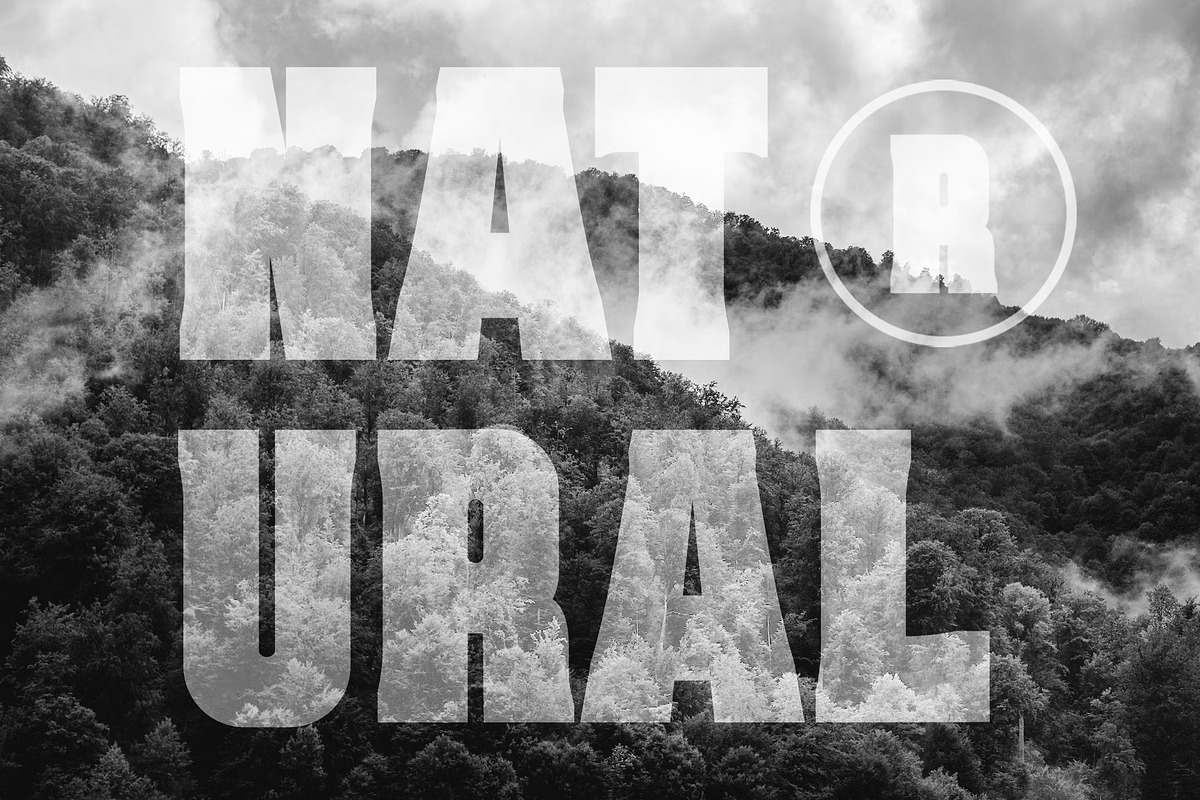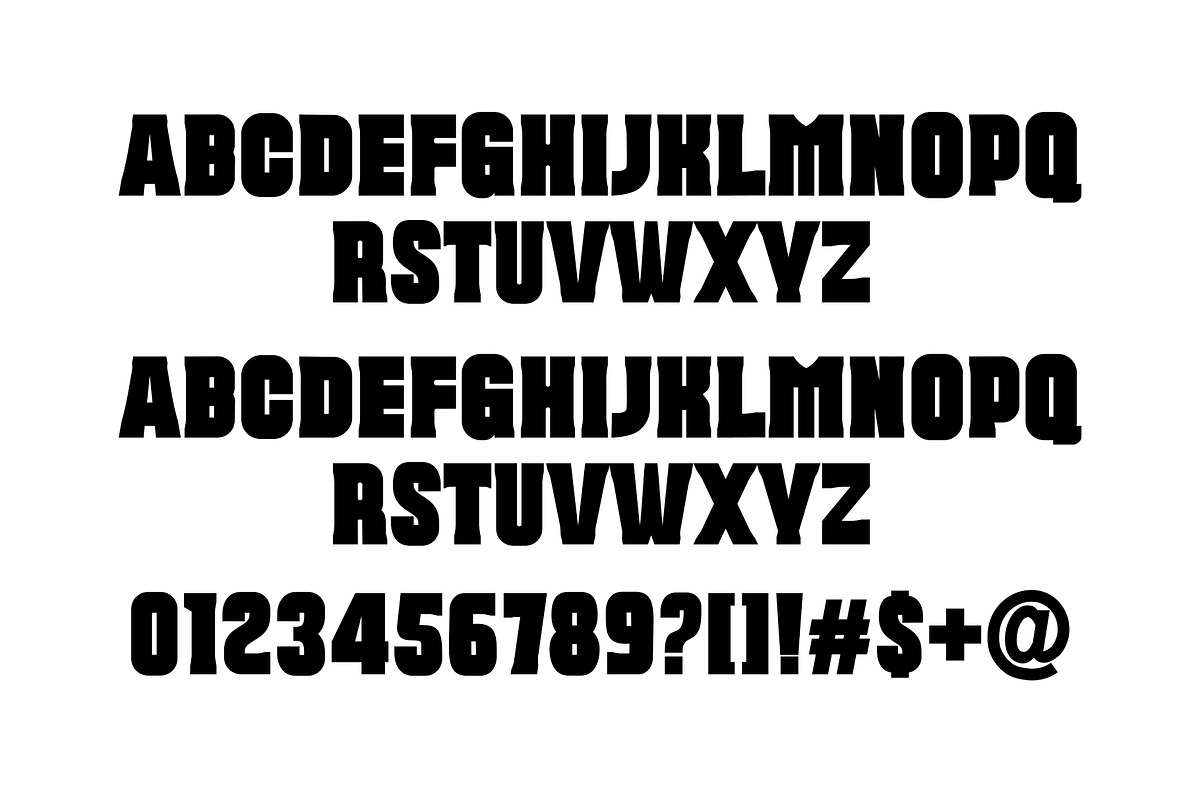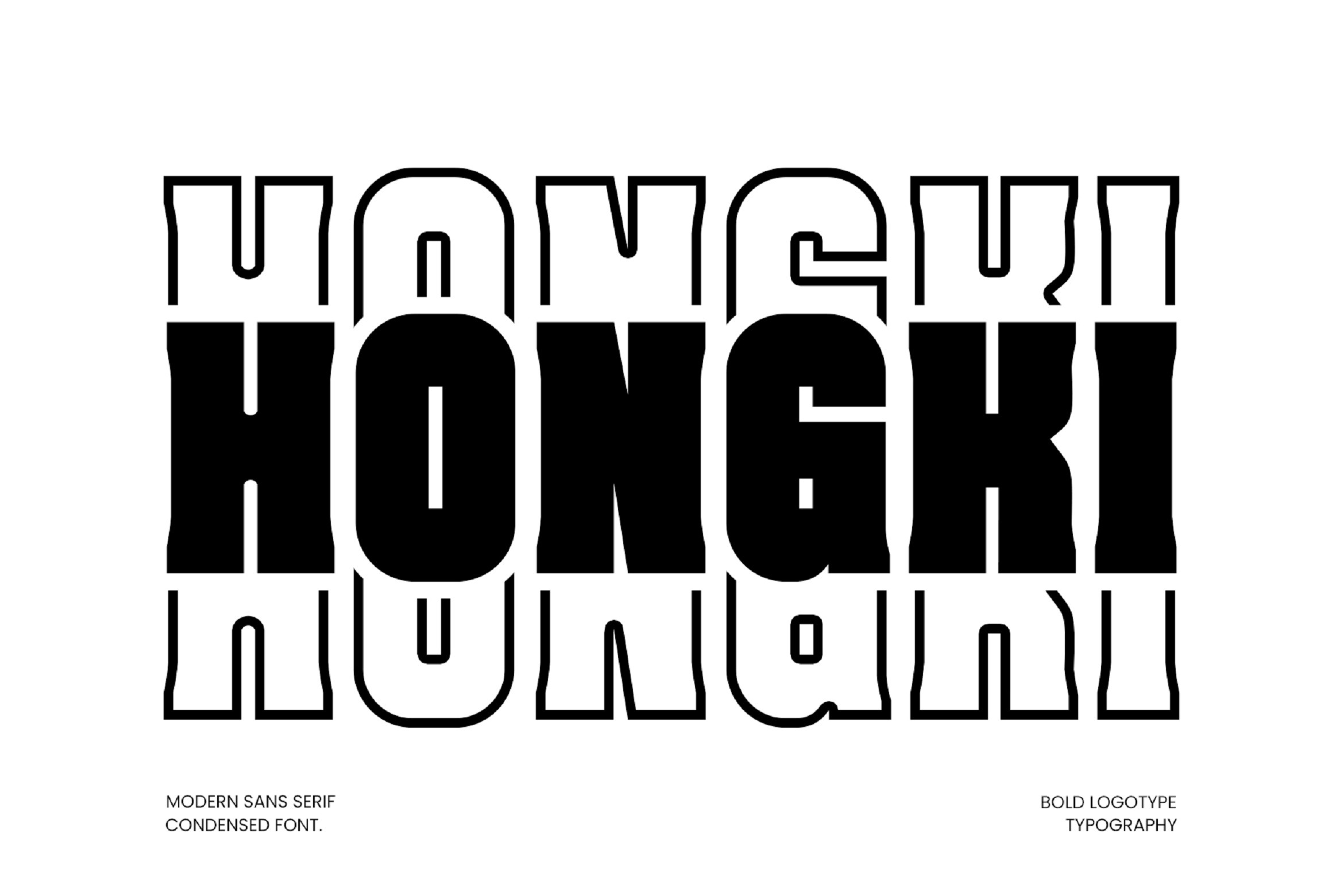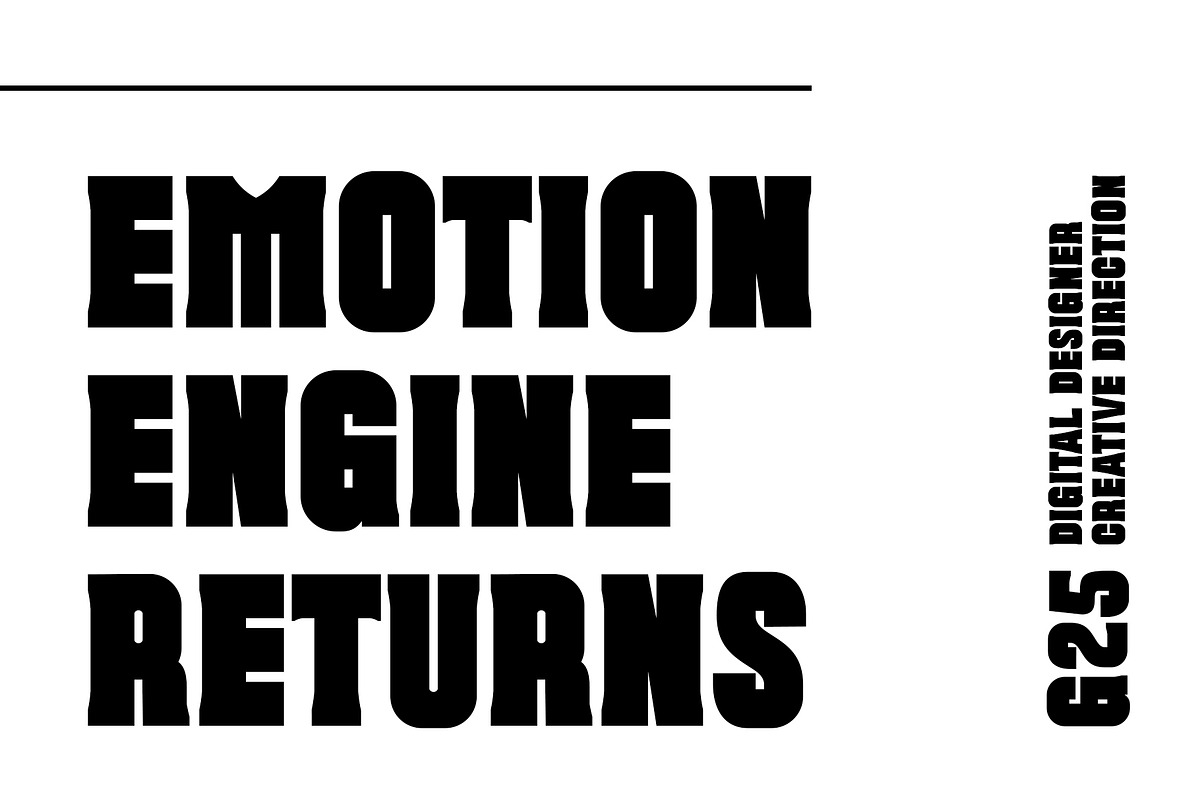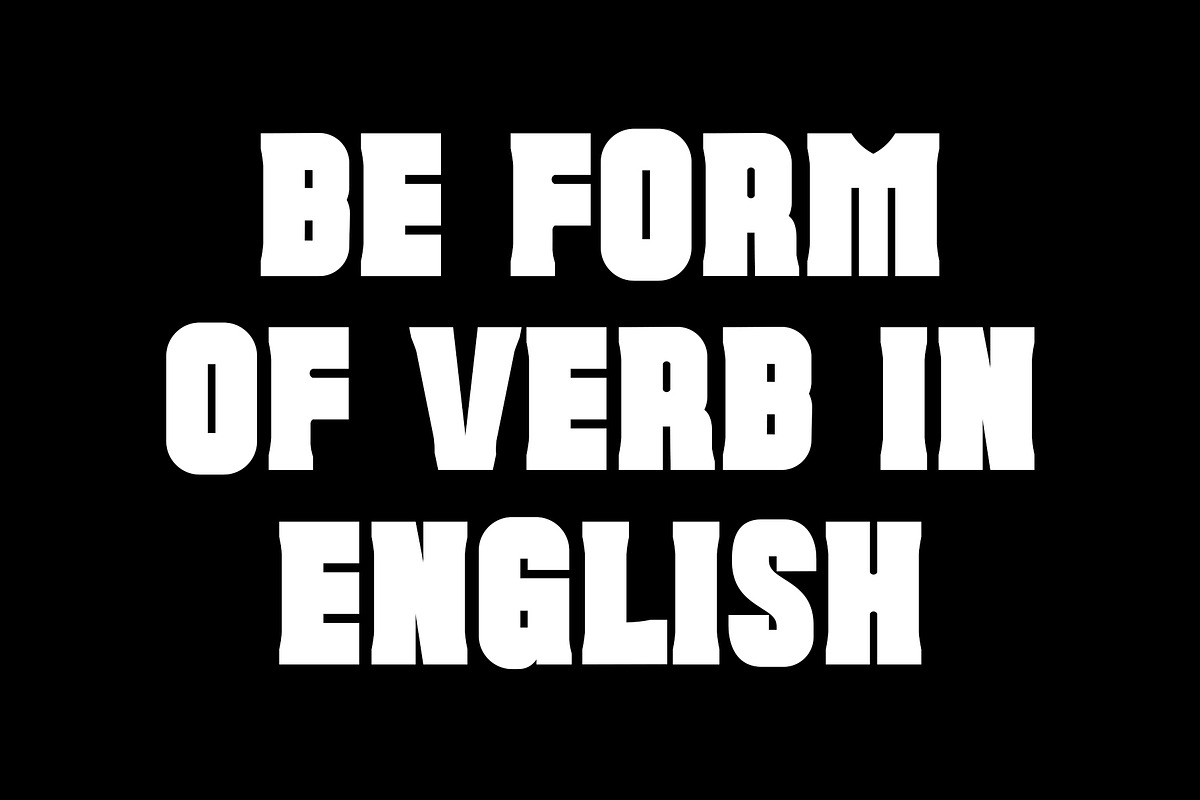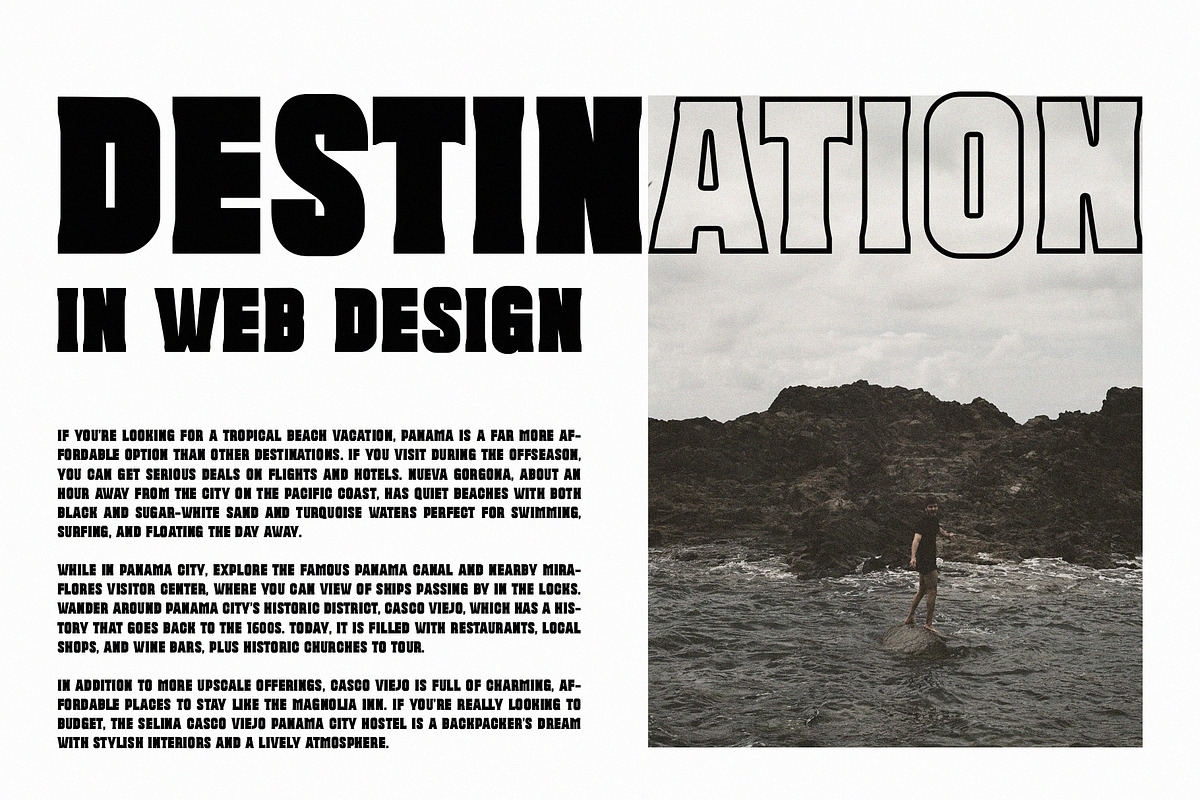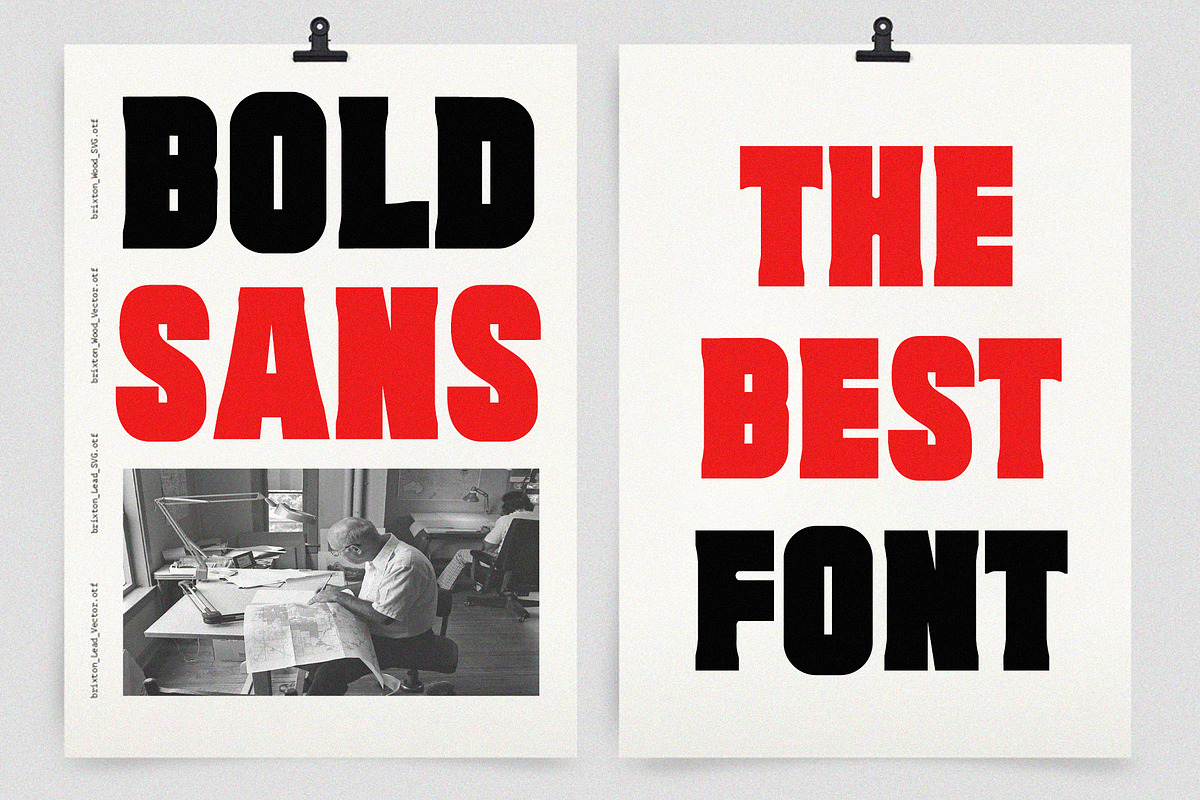
Hongki Modern Slab Serif Font
Cerick Modern Sans Serif Font inspired by the famous minimalist logo perfect for the purposes of designing templates, brochures, videos, advertising branding, logos, invitation, layout design, elegant crafting, beauty design and other